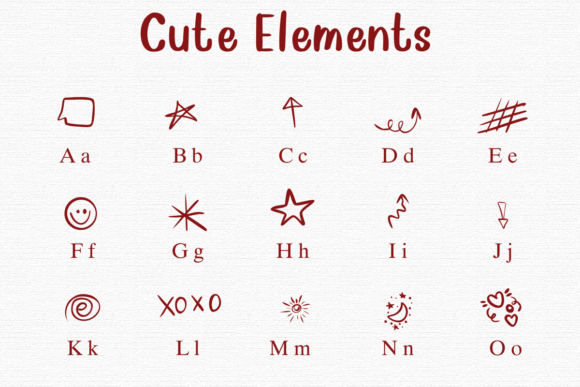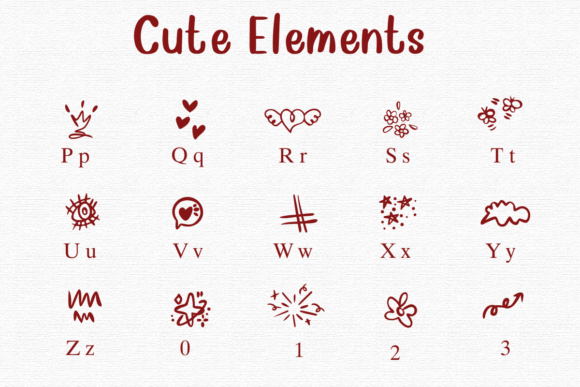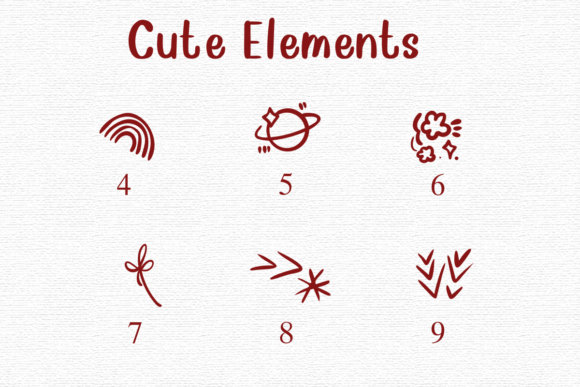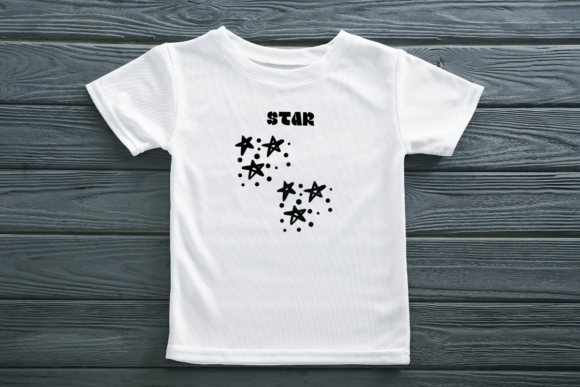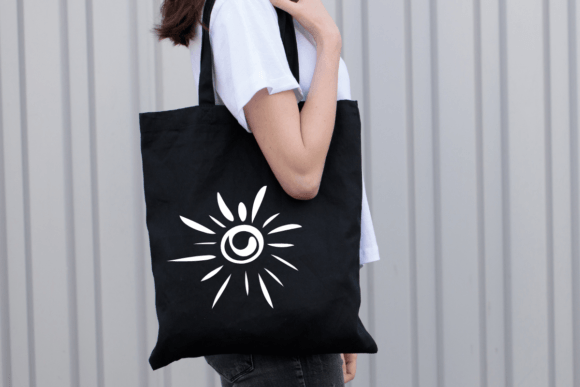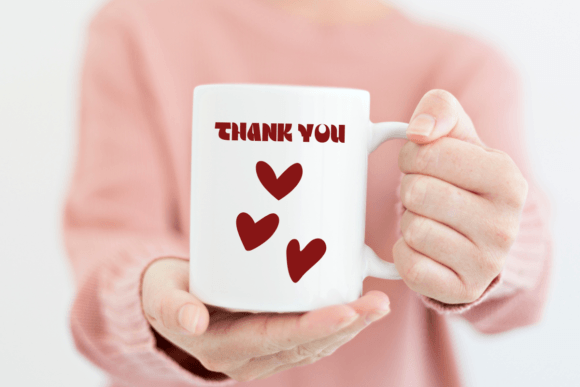
Cute Elements Font: Add a Touch of Whimsy to Your Creative Projects
Are you looking for a font that can add a dash of fun and playfulness to your creative projects? Look no further than Cute Elements, a delightful dingbat font that’s perfect for crafty designers and DIY enthusiasts. In this article, we’ll explore the features and benefits of Cute Elements, and show you how it can elevate your wedding invitations, DIY crafts, decorations, logos, and other creative endeavors.
What is Cute Elements Font?
Cute Elements is a unique dingbat font that features a fun and whimsical theme. Dingbat fonts are a type of font that uses symbols, icons, and graphics instead of traditional letters and numbers. Cute Elements is packed with a wide range of cute and colorful elements, including animals, flowers, hearts, stars, and more. These elements can be used to add visual interest and personality to your designs, making them perfect for creative projects that require a touch of whimsy.
Features of Cute Elements Font
Cute Elements font comes with a range of features that make it a versatile and user-friendly font. Some of its key features include:
- Wide range of elements: Cute Elements features a vast collection of cute and colorful elements, including animals, flowers, hearts, stars, and more.
- Easy to use: Simply type in the keyboard shortcuts to access the elements, and use them in your designs.
- Scalable: Cute Elements font is scalable, making it perfect for use in a variety of projects, from small crafts to large-scale designs.
Uses of Cute Elements Font
Cute Elements font is perfect for a wide range of creative projects, including:
- Wedding Invitations: Add a touch of whimsy to your wedding invitations with Cute Elements’ cute and colorful elements.
- DIY Crafts: Use Cute Elements to add a personal touch to your DIY crafts, such as scrapbooking, card-making, and paper crafting.
- Decorations: Create custom decorations, such as garlands, banners, and signs, using Cute Elements’ fun and playful elements.
- Logos: Use Cute Elements to create unique and memorable logos for your business or brand.
- Social Media Graphics: Add a touch of personality to your social media graphics, such as Facebook posts, Instagram stories, and Twitter headers.
Benefits of Using Cute Elements Font
Using Cute Elements font can bring a range of benefits to your creative projects, including:
- Unique and eye-catching designs: Cute Elements’ fun and playful elements can help your designs stand out from the crowd.
- Increased creativity: With a wide range of cute and colorful elements at your fingertips, Cute Elements can inspire your creativity and help you come up with new and innovative design ideas.
- Time-saving: Cute Elements font is easy to use and can save you time and effort in your design projects.
Cute Elements font is a fun and versatile dingbat font that’s perfect for crafty designers and DIY enthusiasts. With its wide range of cute and colorful elements, ease of use, and compatibility with popular design software, Cute Elements can add a touch of whimsy and personality to your creative projects. Whether you’re creating wedding invitations, DIY crafts, decorations, logos, or social media graphics, Cute Elements font is a great choice. So why not give it a try and see how it can enhance your designs?
Get Creative with Cute Elements Font
Ready to get creative with Cute Elements font? Here are some tips to get you started:
- Experiment with different elements: Try out different elements and see how they work together in your designs.
- Mix and match: Combine Cute Elements with other fonts and graphics to create unique and eye-catching designs.
- Share your creations: Share your designs on social media and inspire others to get creative with Cute Elements font.